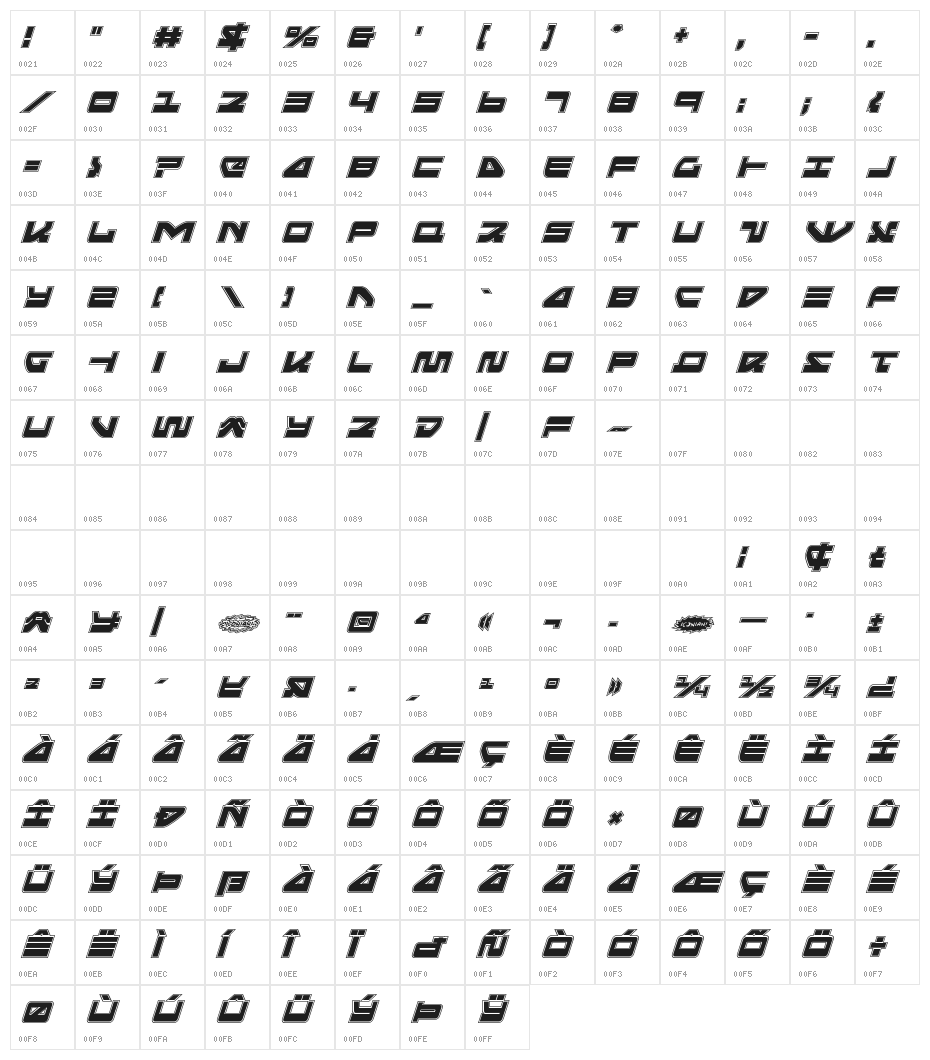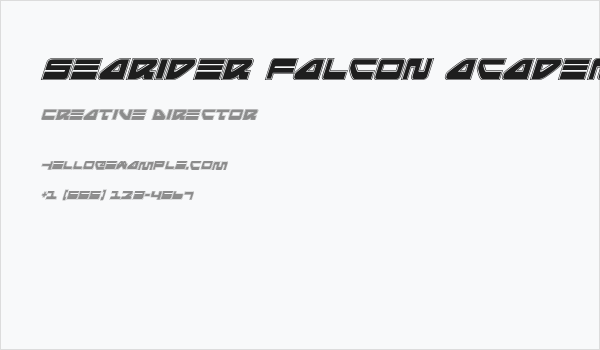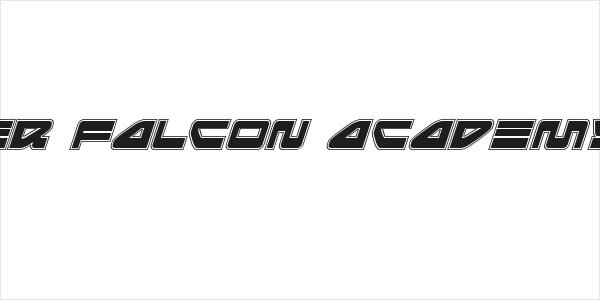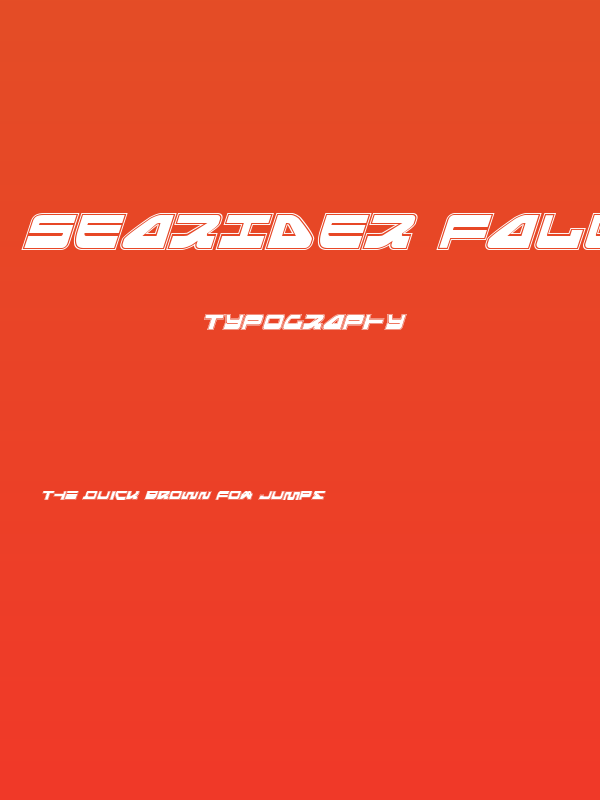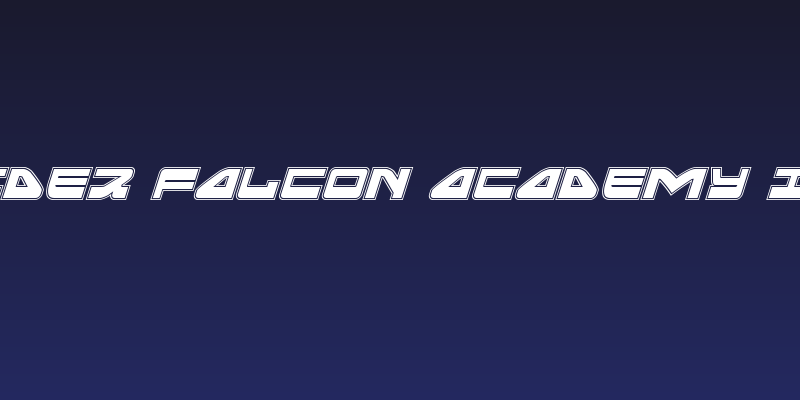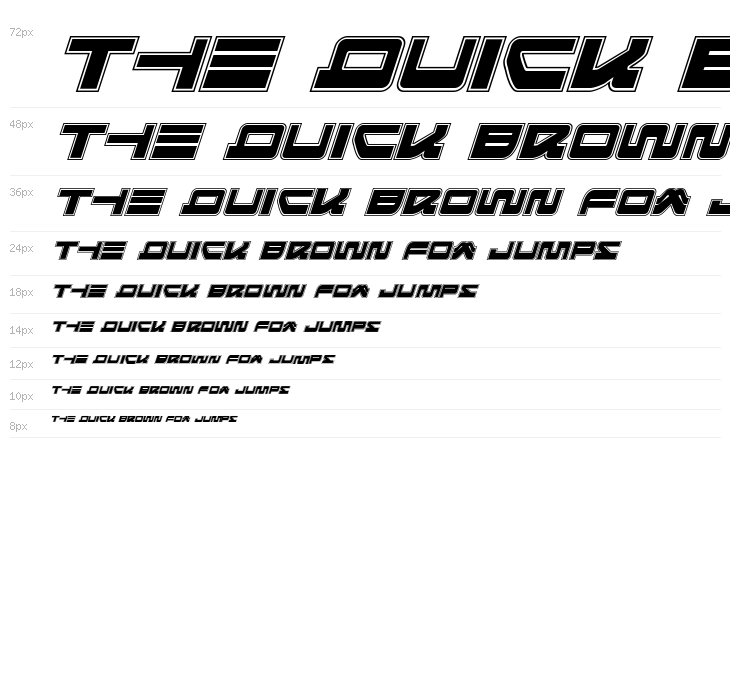
Searider Falcon Academy Italic Font
Searider Falcon Academy Italic Description
This font exhibits a bold and futuristic style with a distinct italic slant. The characters are outlined, giving them a three-dimensional appearance. The geometric shapes and sharp angles create a dynamic and energetic feel, making it suitable for modern and tech-oriented designs. The uppercase and lowercase letters maintain a consistent style, with the numbers and special characters following the same design principles. The font's unique structure and bold presence make it stand out, ideal for attention-grabbing headlines or logos.
| Proposed Projects | Ideal for tech branding, sci-fi posters, video game titles, and futuristic event promotions. |